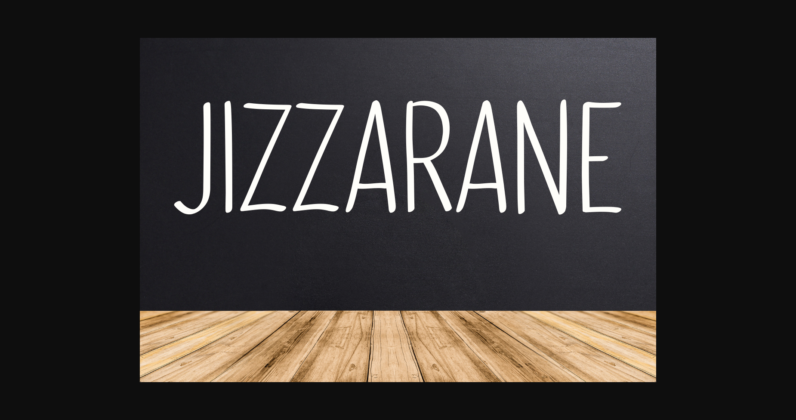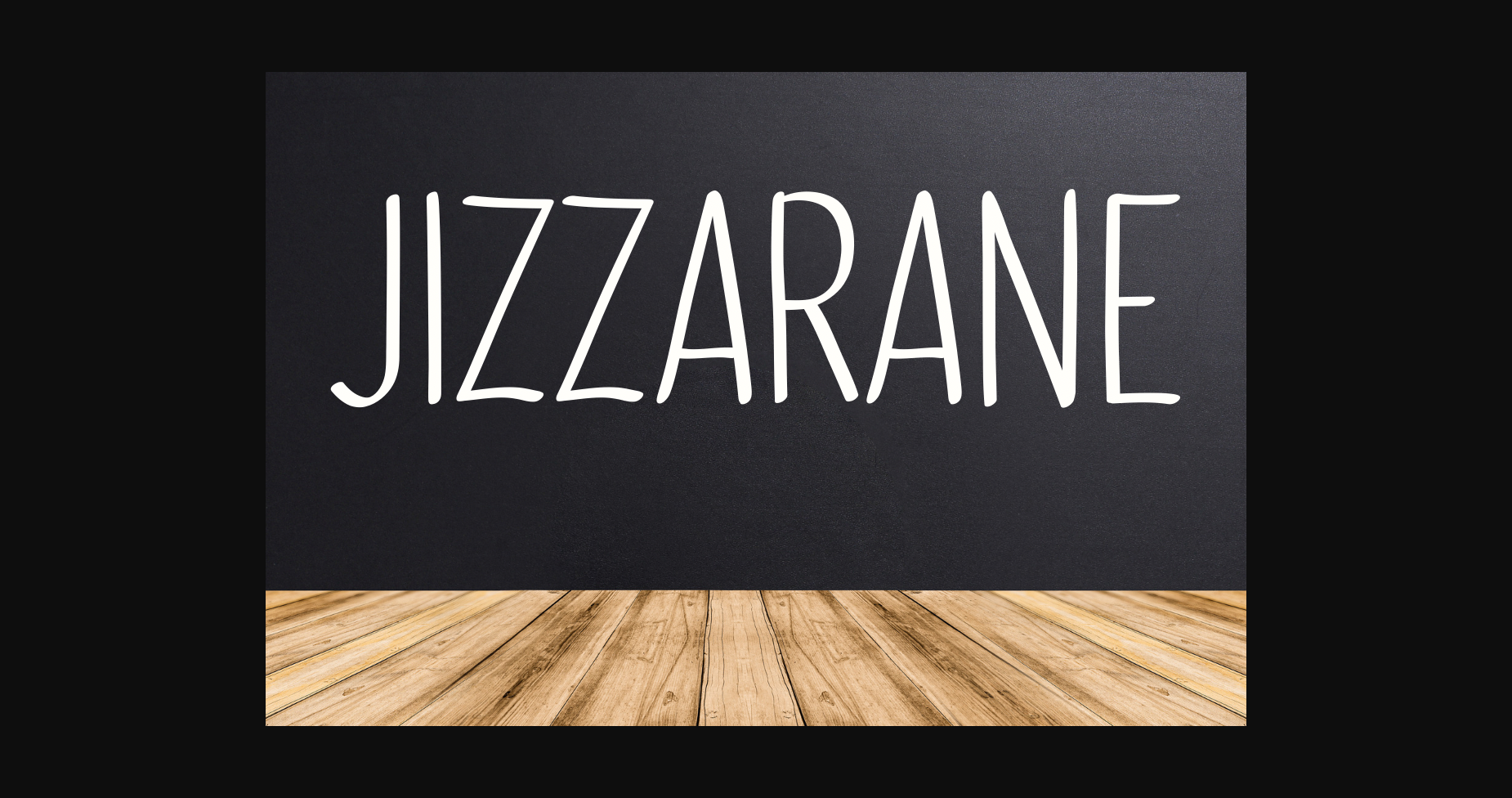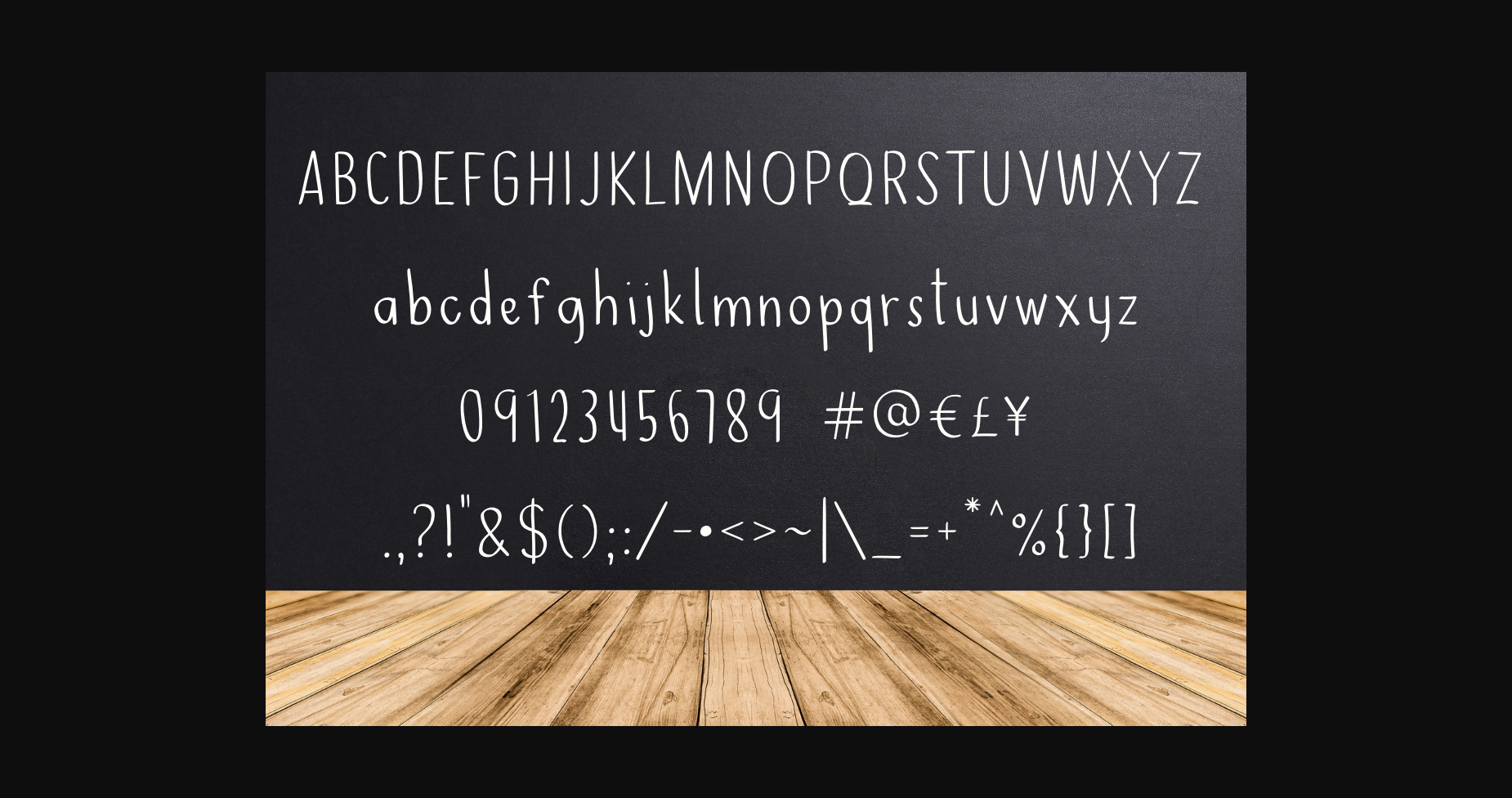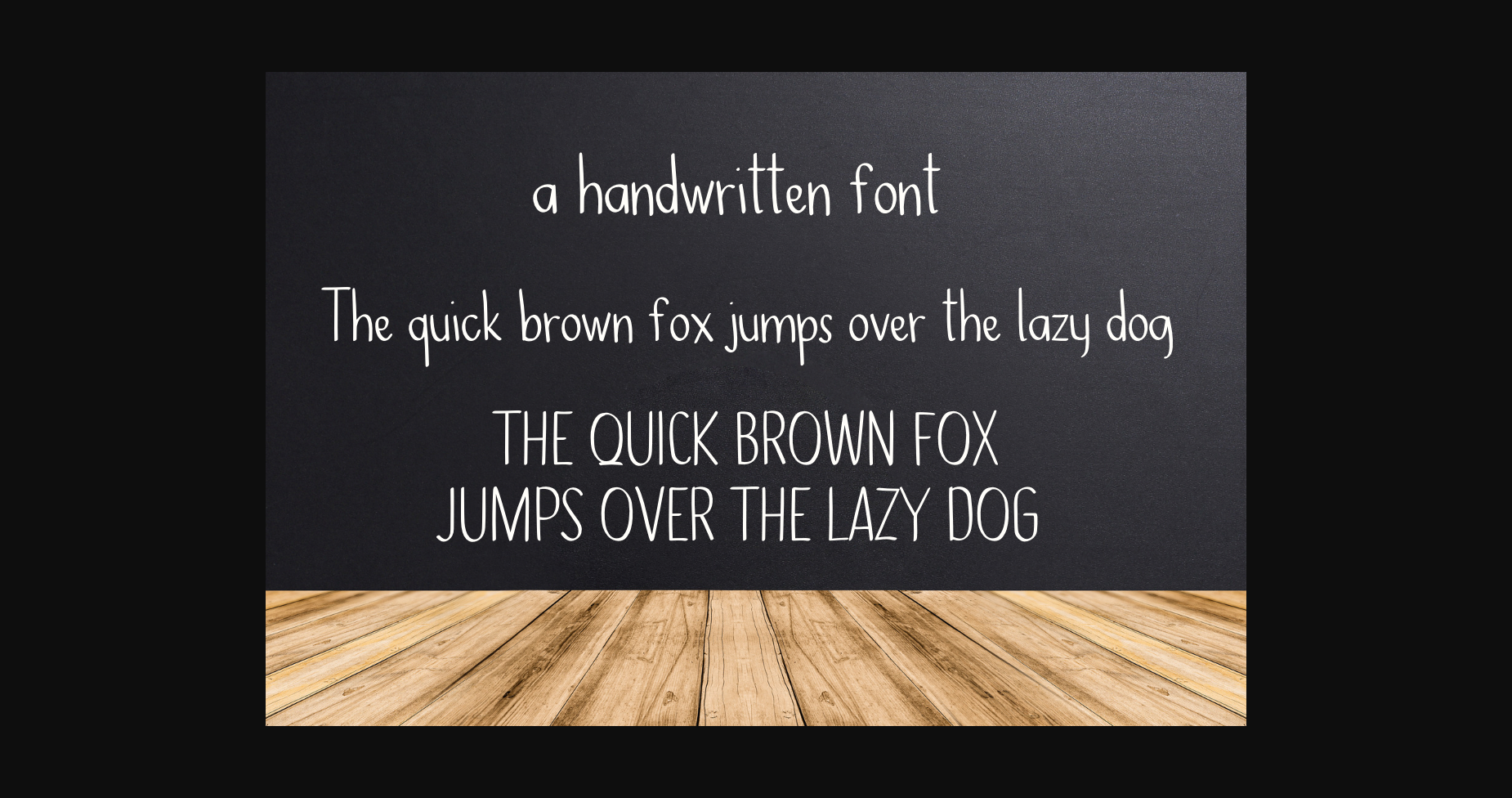
About Jizzarane Font
Jizzarane is a casual and easygoing handwritten sans-serif font with a relaxed and approachable appearance. Its clean letterforms feature subtle irregularities and variations, giving it a natural and authentic feel. The font is perfect for designs that require a sense of informality and friendliness, such as social media graphics, greeting cards, or product packaging. Jizzarane is a versatile font that can be used for both body text and headlines, and its relaxed and unpretentious style makes it perfect for a variety of design projects.